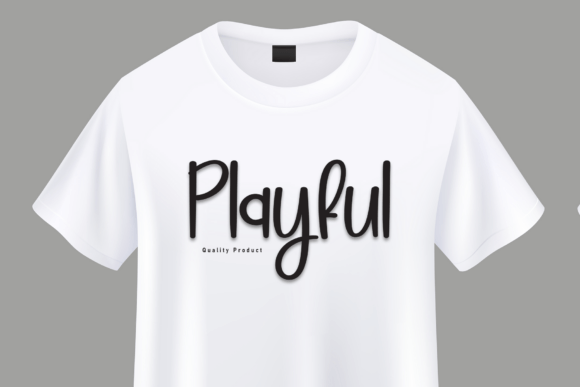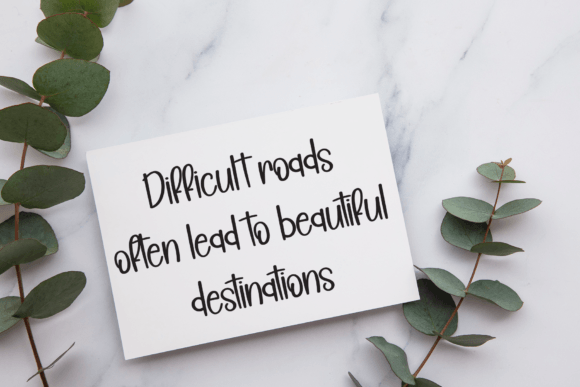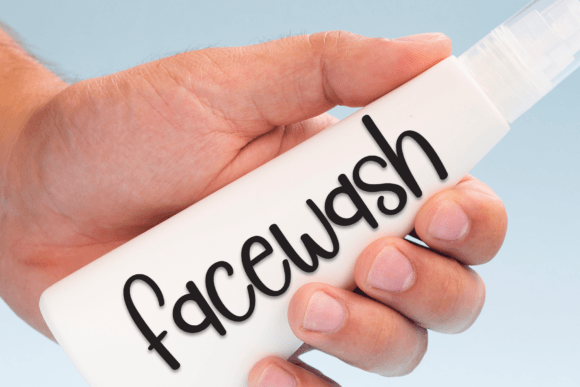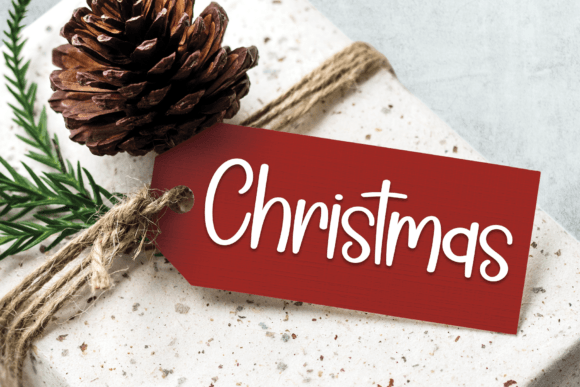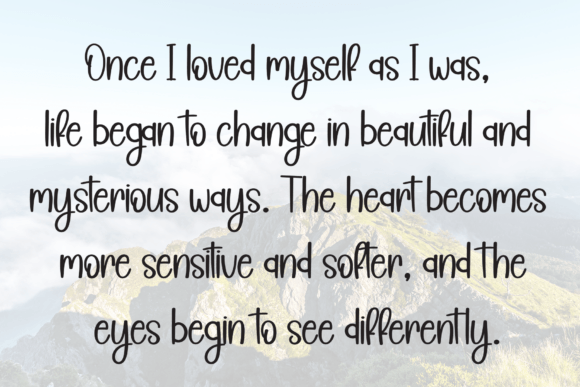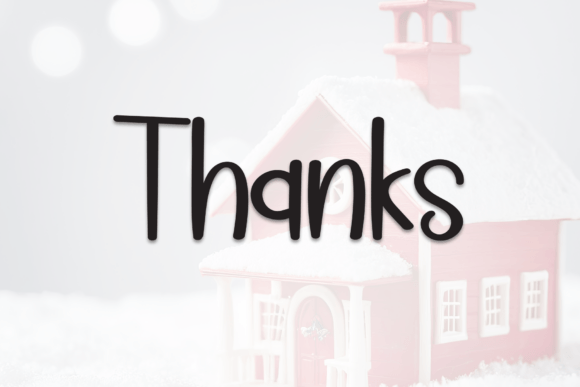
Discover the Magic of Home and Santa Font
Have you ever been scrolling through your favorite design inspiration boards, and suddenly, a font catches your eye, making you smile and transport you to a world of warmth and coziness? That’s exactly what happened to us when we stumbled upon the charming Home and Santa Font. Its hand-scribed display style is a perfect blend of amiable sweetness and playful fun, making it a designer’s dream come true.
Whether you’re crafting heartwarming wedding invitations, designing greeting cards, or simply looking to add a dash of delight to your next project, Home and Santa Font is the perfect choice. Its whimsical elegance will add a personal touch to any design, making it a valuable asset for designers who want to stand out from the crowd. With its unique charm, this font is sure to become your go-to choice for all your design needs.
Home and Santa Font Key Features
- Unique Characteristics: The Home and Santa Font features a playful, cursive script with a festive touch, making it perfect for holiday-themed designs and projects.
Home and Santa Font Review
- The font is perfect for holiday-themed designs, especially Christmas and winter-related projects.
- The script and regular font styles are well-designed and aesthetically pleasing.
- The font is highly customizable, allowing for easy color changes and formatting adjustments.
Limits and Drawbacks ⚠️
- The font may feel a bit too playful or childish for more formal or corporate designs.
- The regular font style could benefit from more ligature support for improved readability.
- The font might not be suitable for larger text sizes or headlines, as it can become a bit too dense.
The Home and Santa Font is a great choice for holiday-themed designs, especially for those looking for a fun and playful script font. However, it may not be the best fit for more formal or professional projects. Overall, I would give this font 4 out of 5 stars for its unique style and customization options.
Tips for Getting the Most Out of the Home and Santa Font